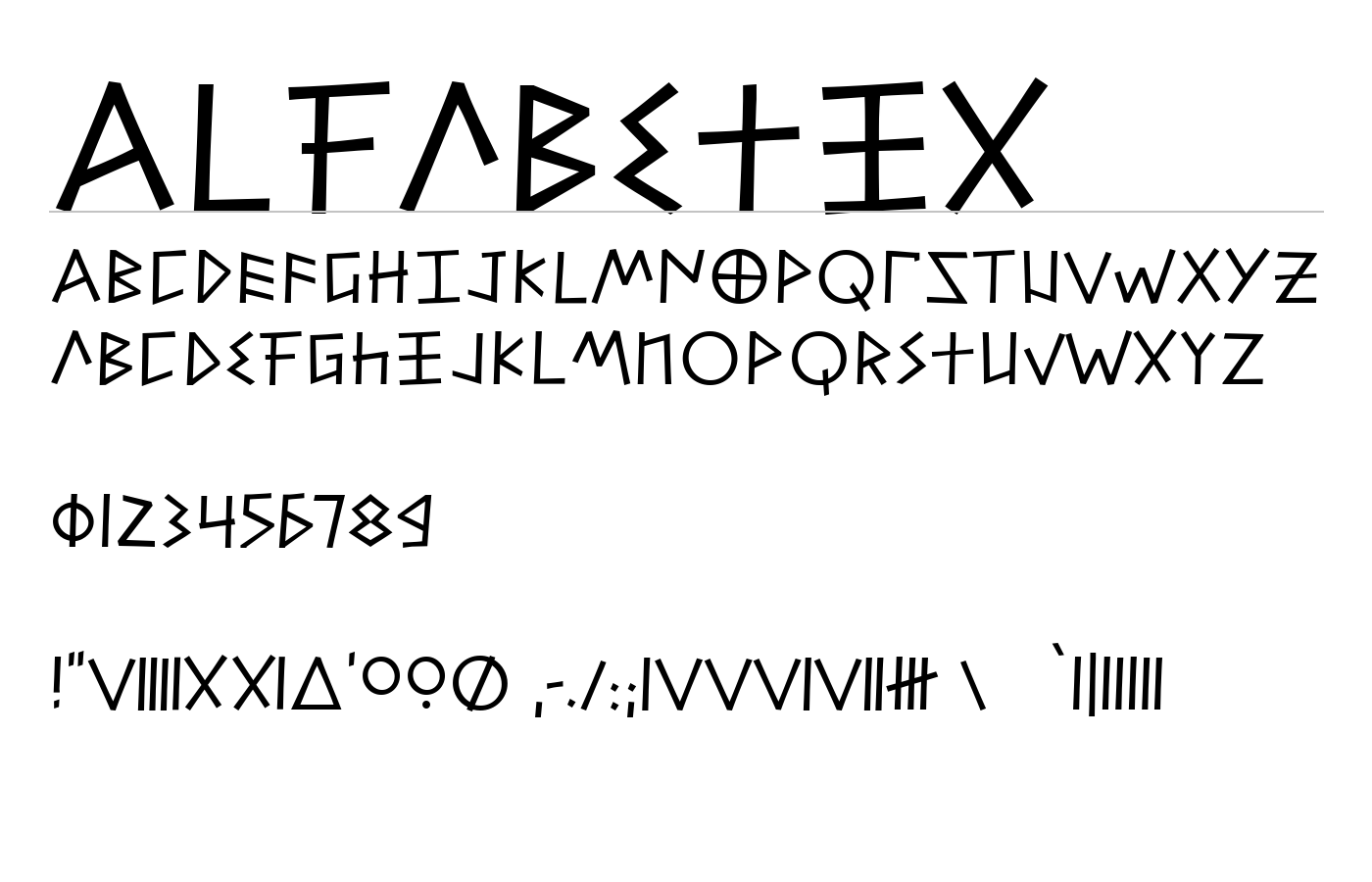
Alfabetix is a playful, geometric sans serif font with a hand-drawn, ancient-symbol feel. Its uneven strokes and quirky letterforms create a unique, informal style perfect for creative projects, posters, and branding that seeks a whimsical or tribal-inspired vibe. This font stands out with its distinct personality, making it great for eye-catching headlines and artistic designs.